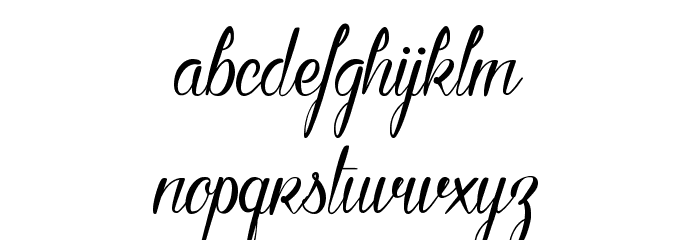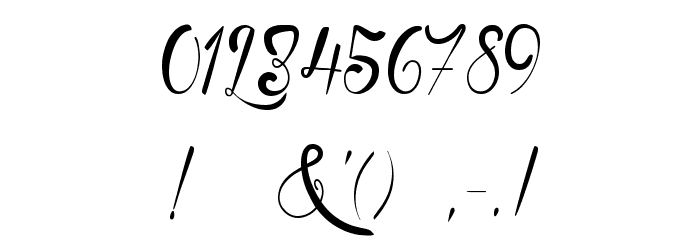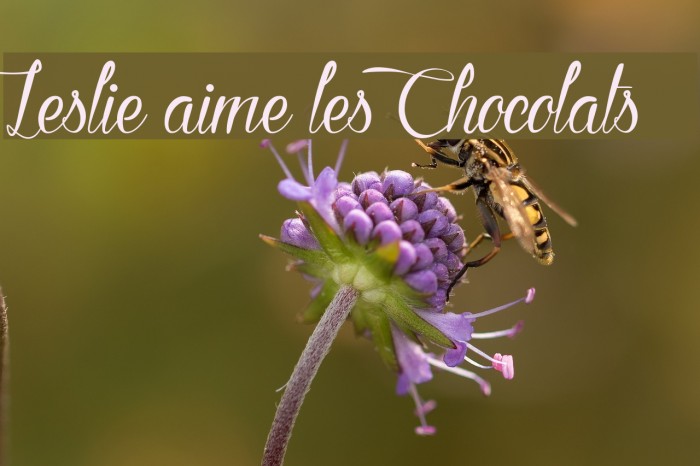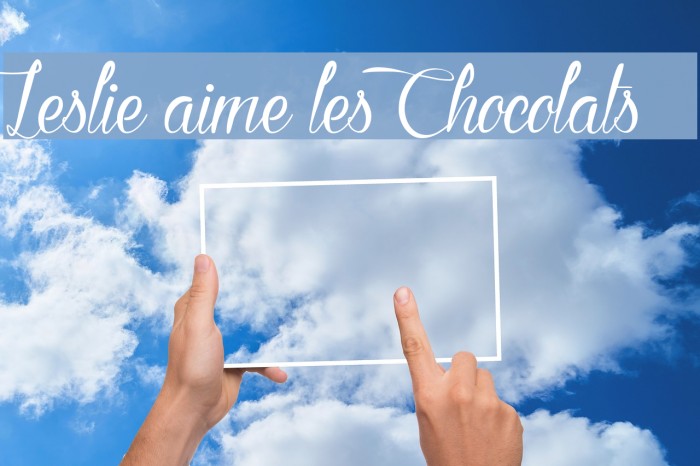
Leslie aime les Chocolats Font
This font exudes elegance and sophistication with its intricate script style. The uppercase letters are adorned with elaborate swashes and flourishes, giving them a decorative and artistic appearance. The lowercase letters maintain a graceful flow, with smooth, connected strokes that enhance readability while retaining an artistic flair. The numerals are equally stylish, featuring unique curves and loops that align with the overall aesthetic. Special characters are thoughtfully designed to complement the font's ornate style, making it suitable for creative and formal applications.
An elegant and sophisticated script font with intricate swashes and flourishes.
- Proposed Projects: Ideal for wedding invitations, luxury branding, elegant packaging, and artistic posters.
- Use Case: Logos, Invitations, Decorative Text